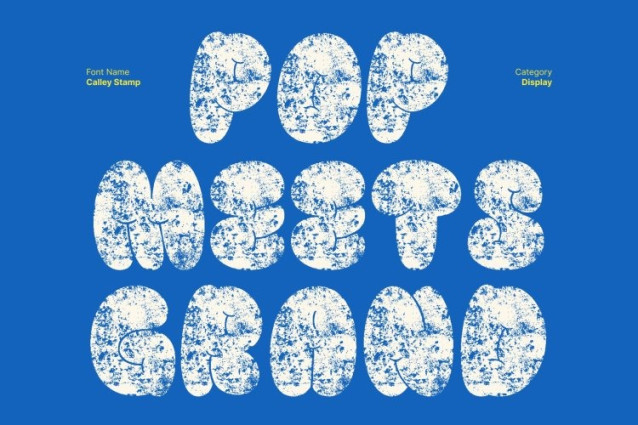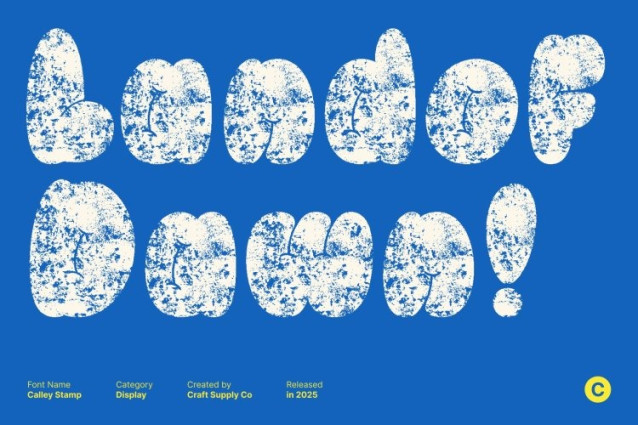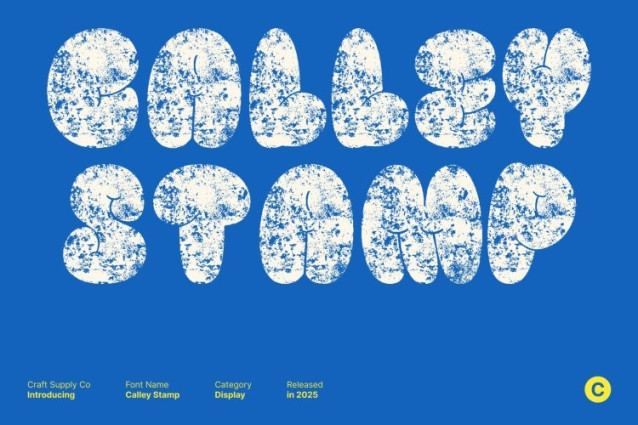
Calley Stamp Font
Calley Stamp Font This is a display font designed with bold, bubbly shapes that instantly deliver a funky, cute, and energetic vibe. Each character feels soft yet impactful, making your design stand out with a joyful and eye-catching presence.
Stamp Texture for Unique and Expressive Style
What sets apart is its distinctive stamp texture, adding a subtle vintage roughness that enriches every letter. This textured finish makes the font feel expressive, handcrafted, and full of personality, balancing playful shapes with nostalgic charm.
Perfect for Fun Design and Playful Projects
This font excels in playful and cheerful designs, bringing vibrant energy to posters, children’s materials, stickers, merchandise, and creative branding. Its bubbly style makes it easy to create designs that feel fun, friendly, and full of character.
Ideal for Vintage-Inspired and Creative Layouts
The combination of bubble forms and textured stamping also makes this font great for vintage-themed concepts. Whether you’re crafting retro graphics, funky headlines, or expressive typography-based artworks, adds the perfect mix of cute, bold, and artistic flair to your projects.